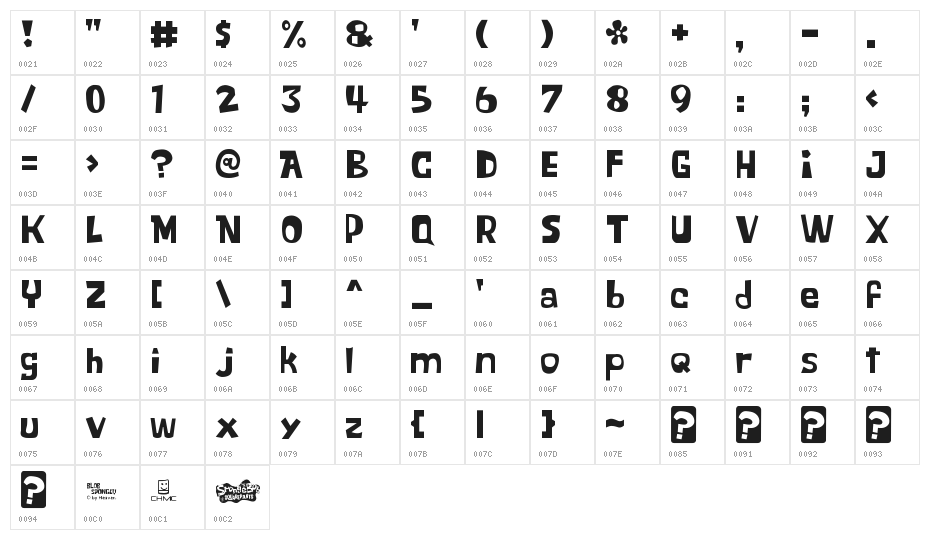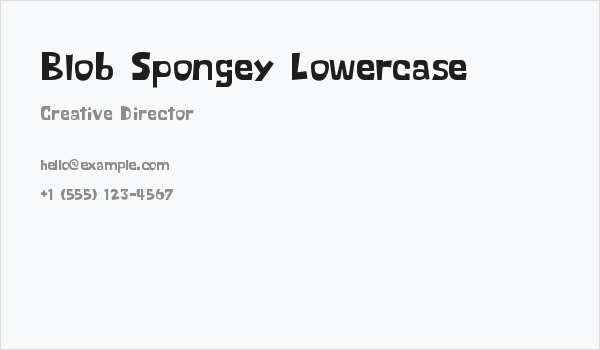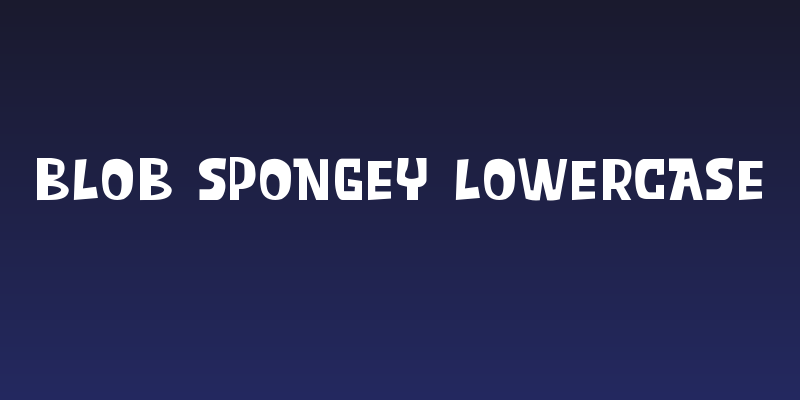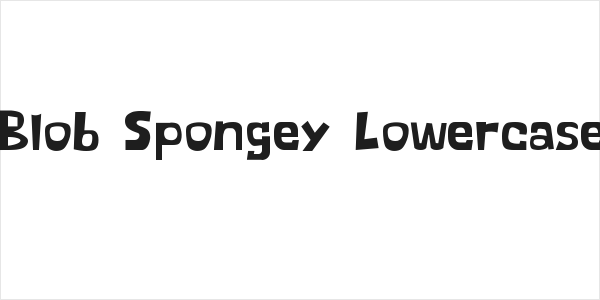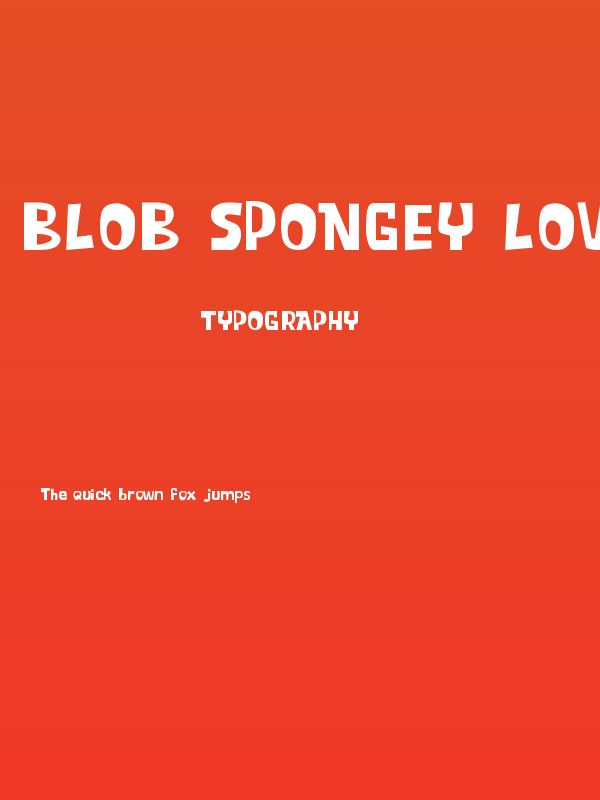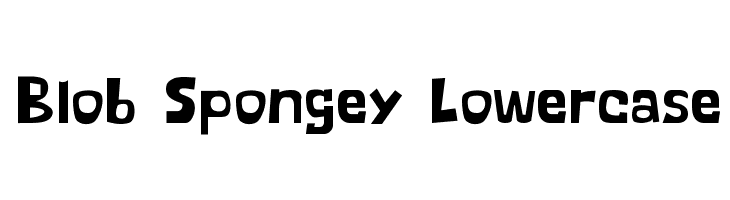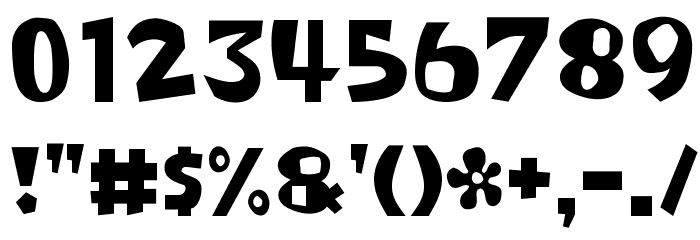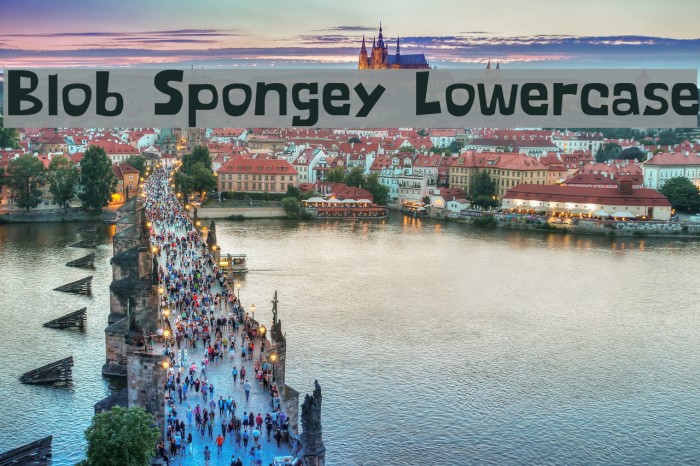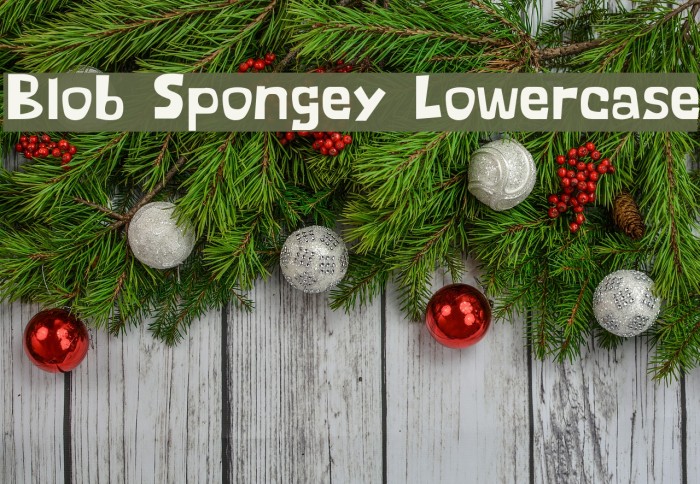
Blob Spongey Lowercase Font
Blob Spongey Lowercase Description
This font features a playful and quirky design with a bold, sponge-like texture. The characters have a unique, uneven appearance, giving them a lively and dynamic feel. The uppercase letters are bold and slightly irregular, while the lowercase letters maintain a consistent style with rounded edges and varying thickness. The numbers and special characters follow the same whimsical design, making the font suitable for creative and informal projects. Its distinct style captures attention and adds a fun element to any text.
| Overall Style | Playful, Quirky |
| Proposed Projects | Ideal for children's books, playful branding, party invitations, and creative posters. |